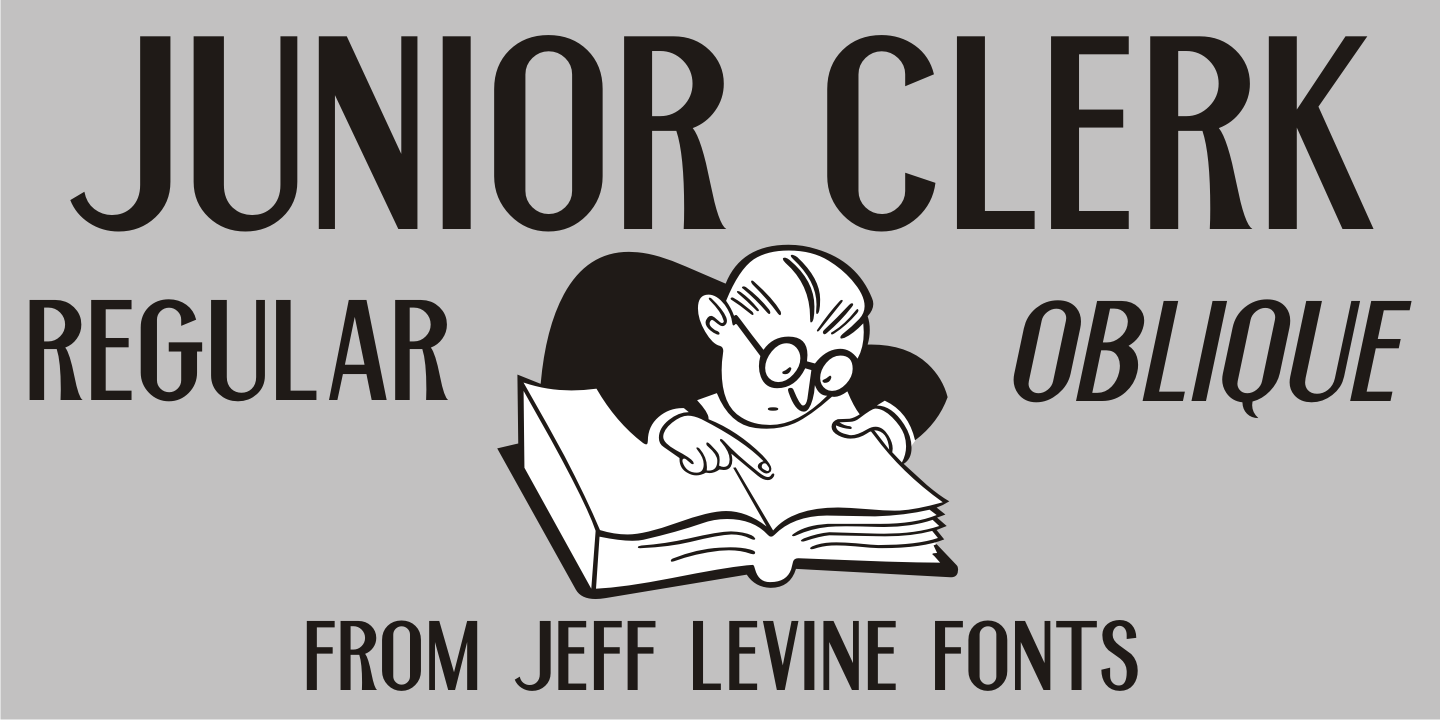
Junior Clerk
Junior Clerk JNL is the plain sans serif version of the lettering found on the cover of the sheet music for 1919's 'The World is Waiting for the Sunriseā€.
The song title was originally set in a decorative sans serif with an engraved line adorning each character. This version of the more fanciful design is available as the companion font Legal Eagle JNL.
Junior Clerk JNL is available in both regular and oblique versions.